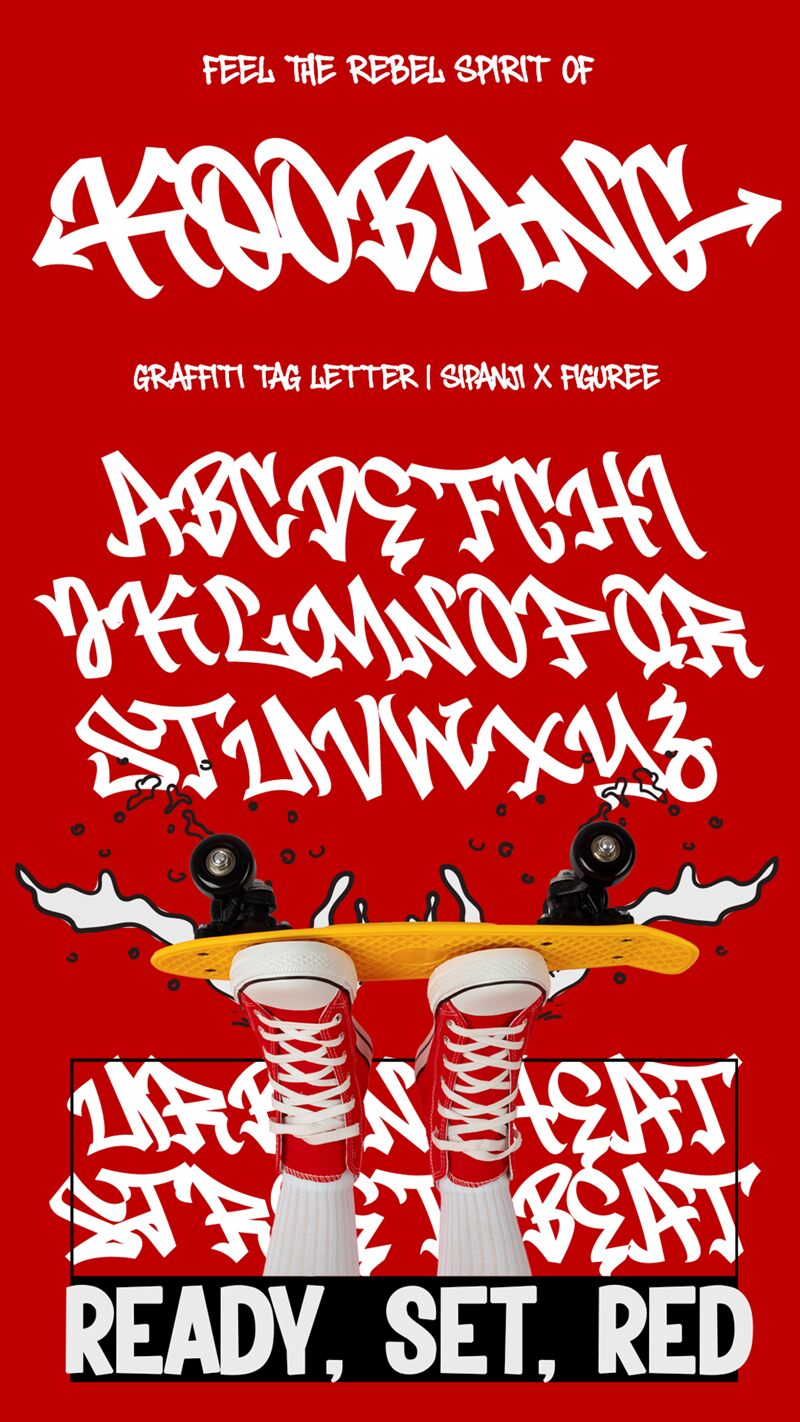
Koobang is a graffiti-inspired free font designed by Cikareotype Studio. It incorporates unique, artistic letterforms that will provide your compositions with a visual interest that’s best described as youthful, urban, and energetic. Both formal and informal, there’s no defined structure that constrains Koobang’s different characters, which ultimately leads to authenticity and exciting results.
Koobang carries a bold personality and dynamic flair, qualities that are widely appreciated for urban designs. It can, therefore, be used for posters for street festivals and performers, album covers, branding and packaging projects, unofficial sports-related posters, etc. The possibilities are not limited to the suggestions. Koobang can also be used for digital designs to create an internet presence or to decorate clothing items, from prints on t-shirts to cap logos.